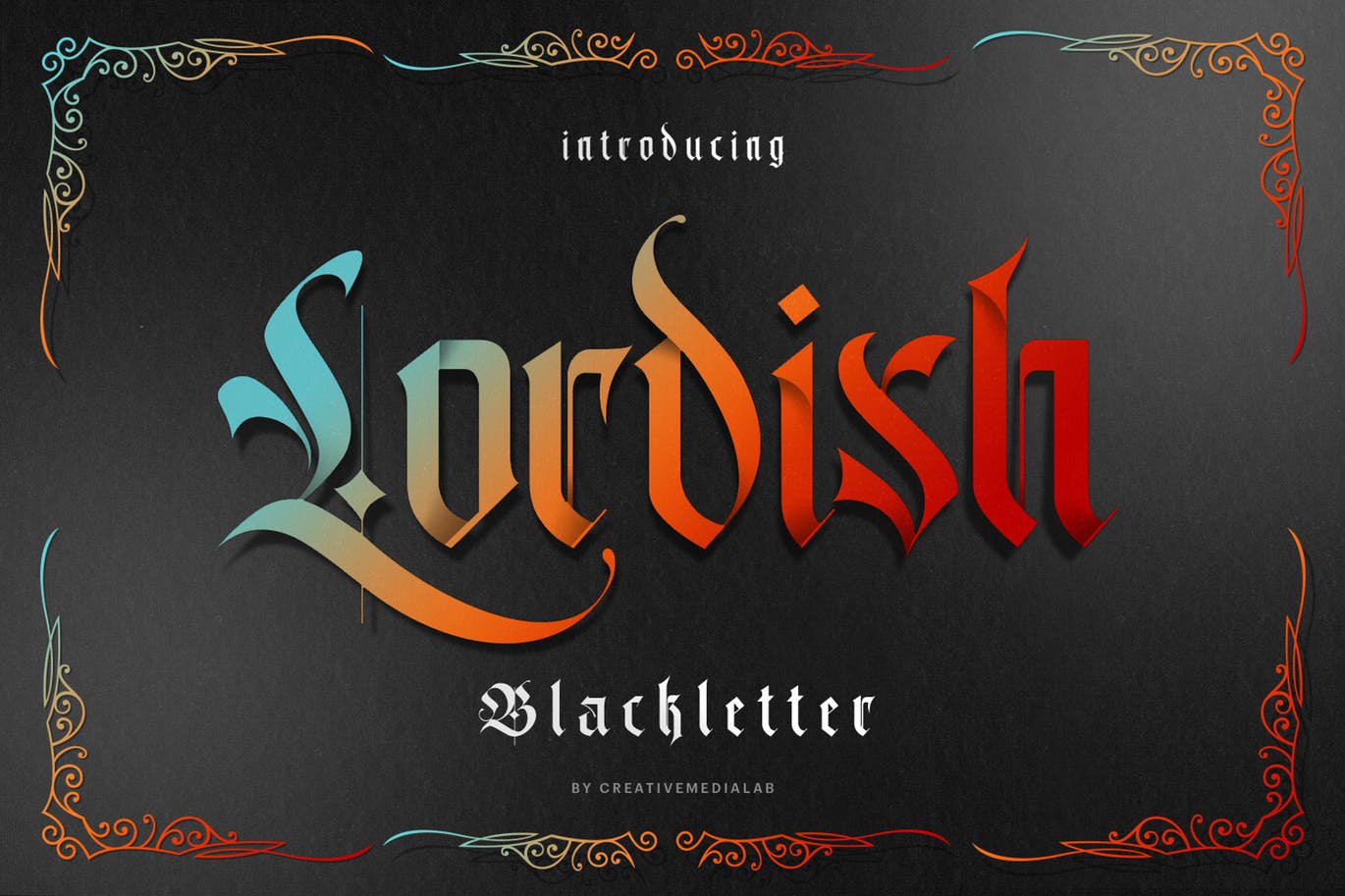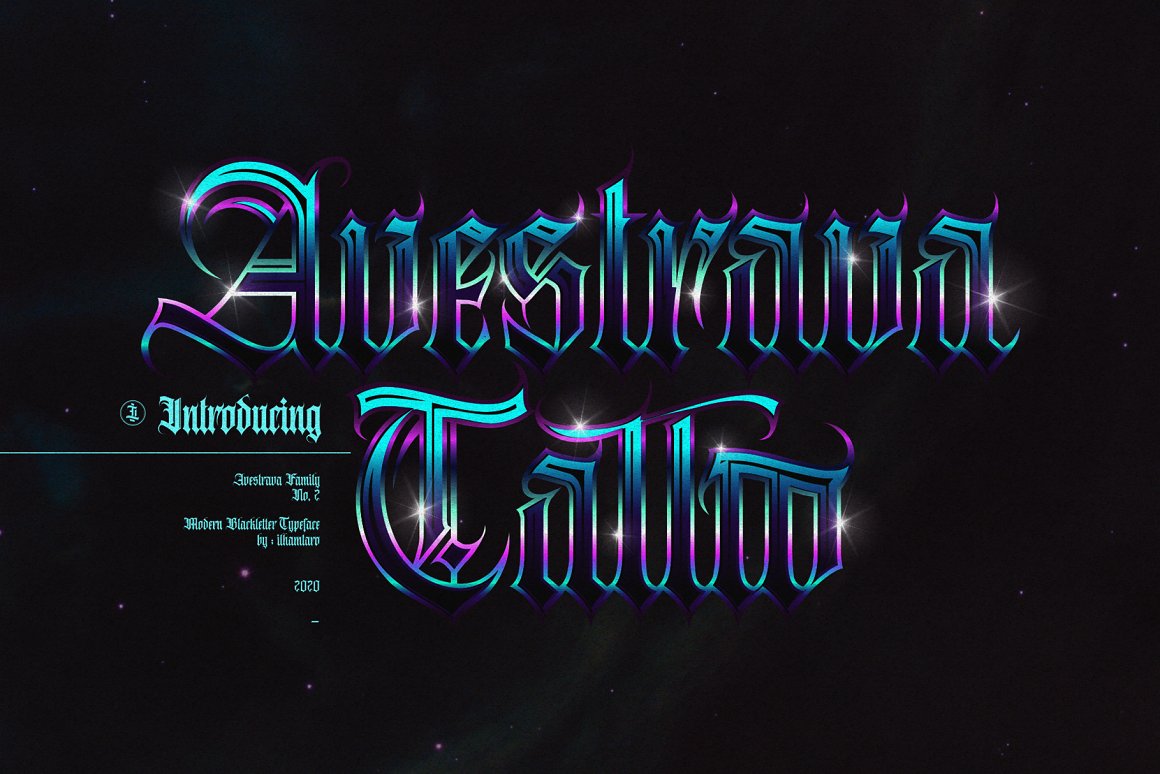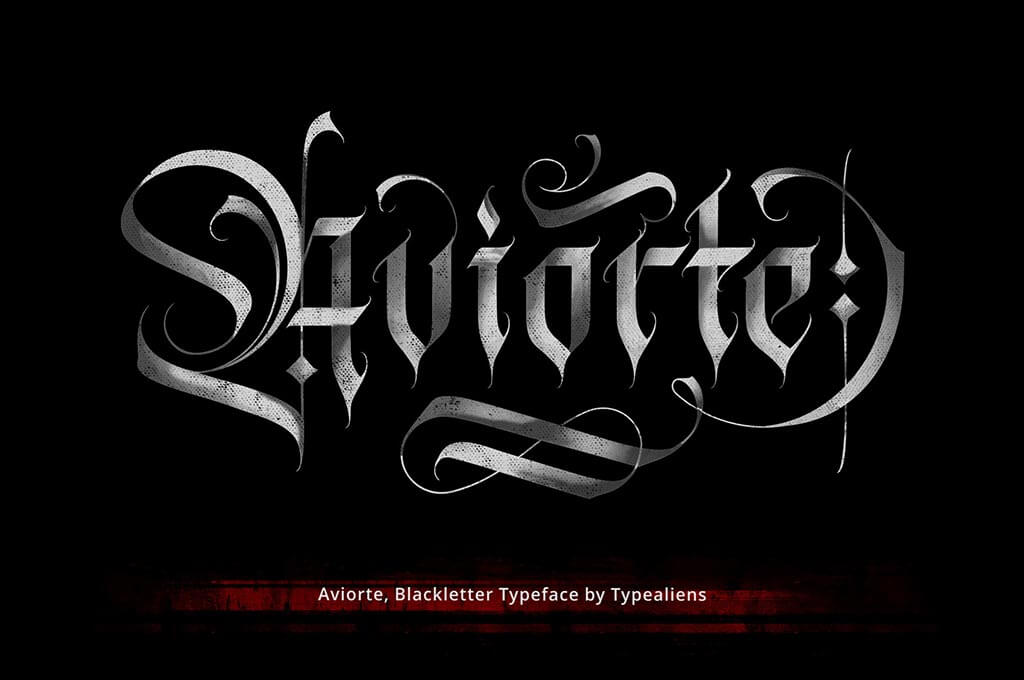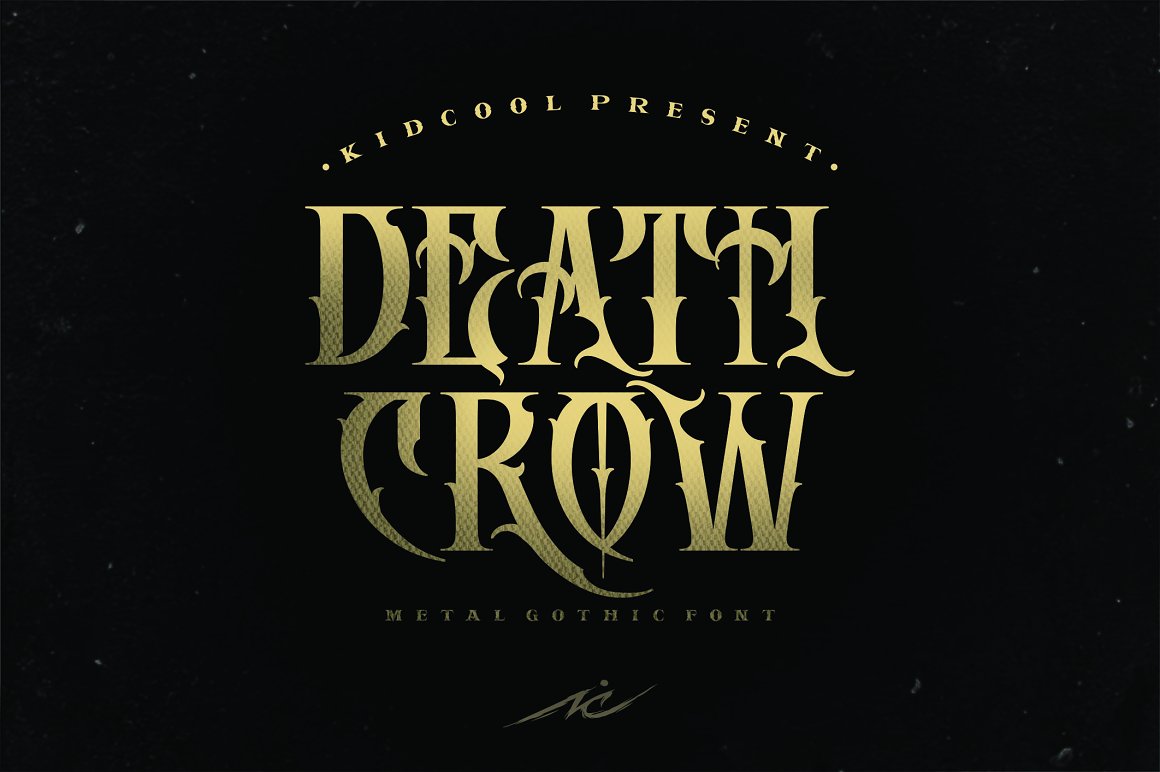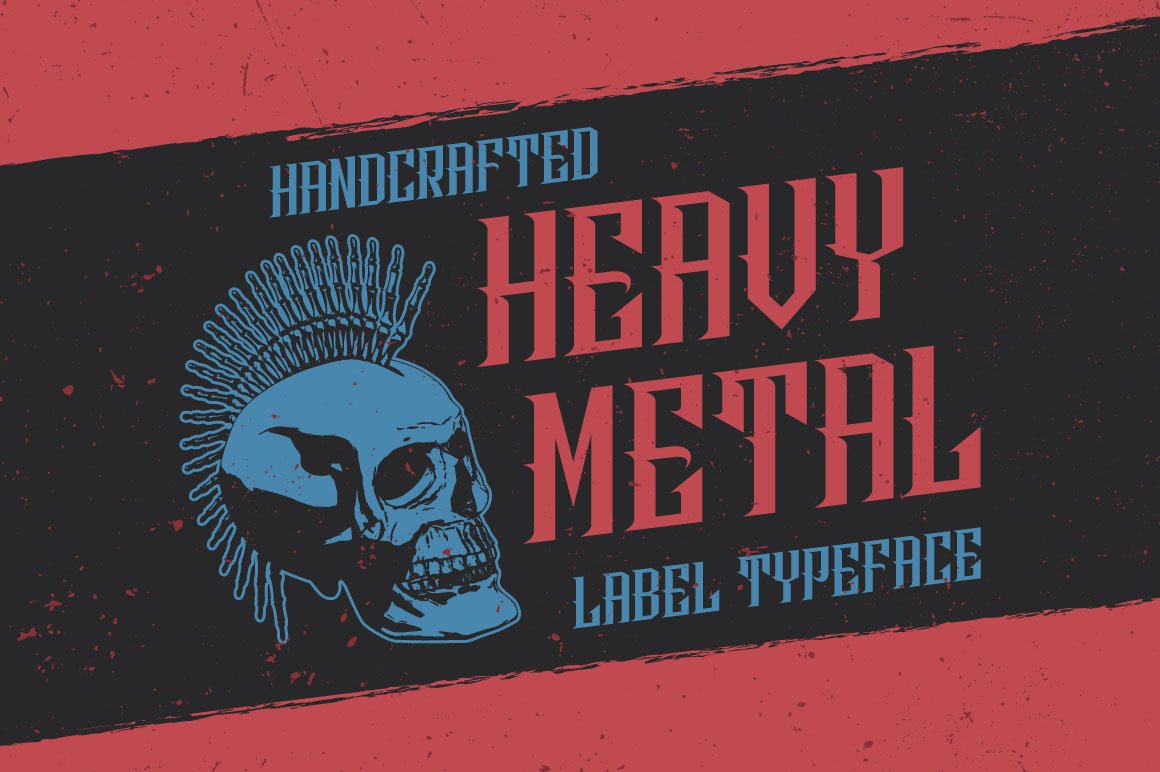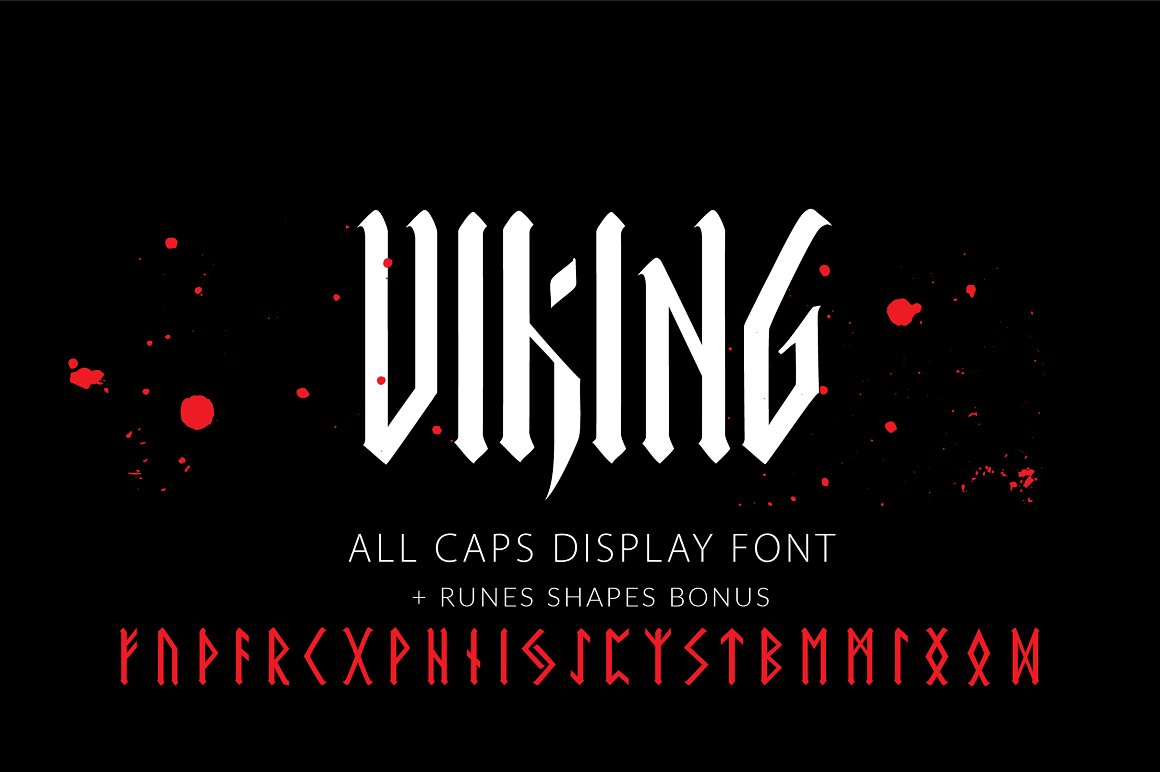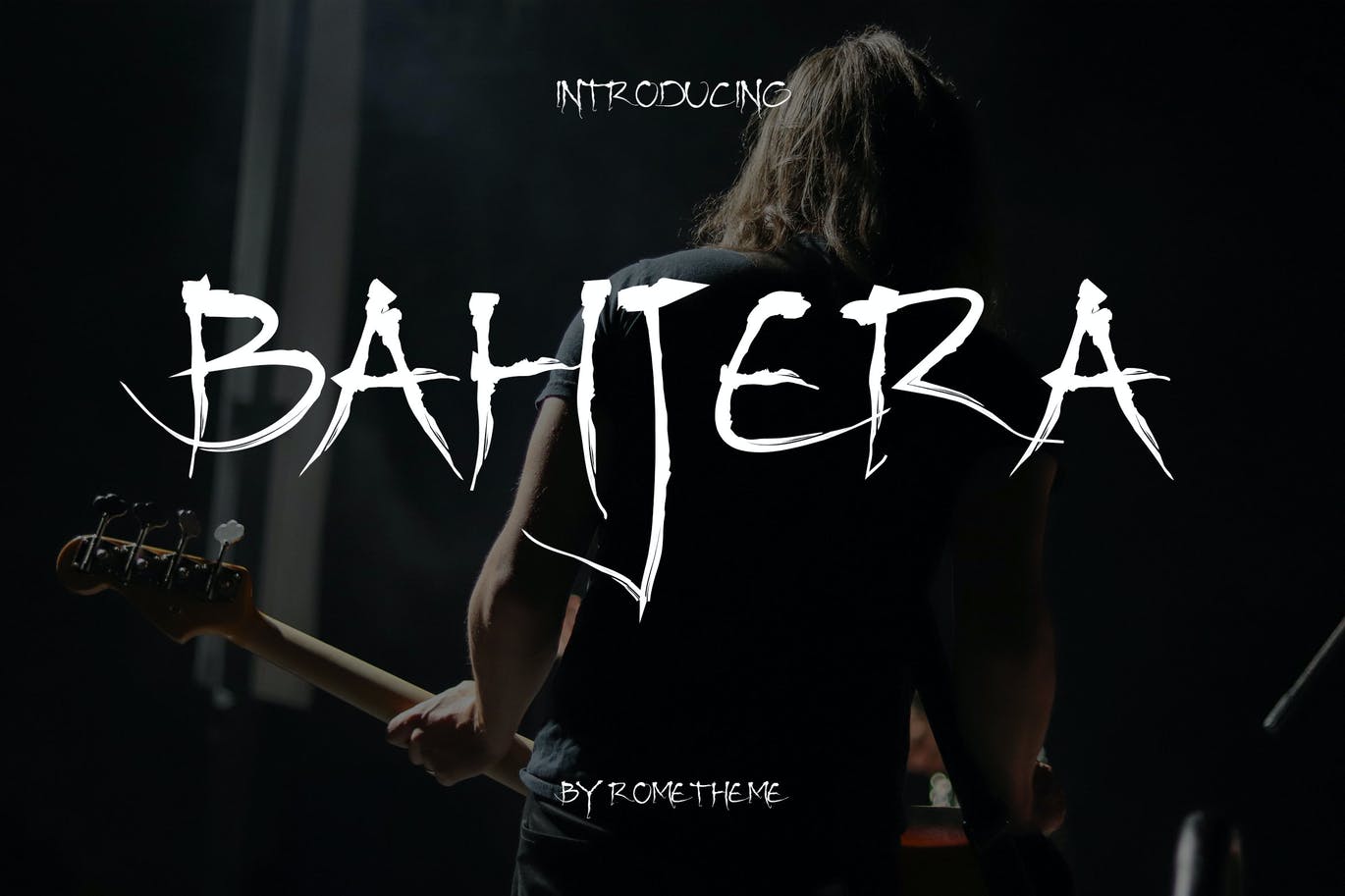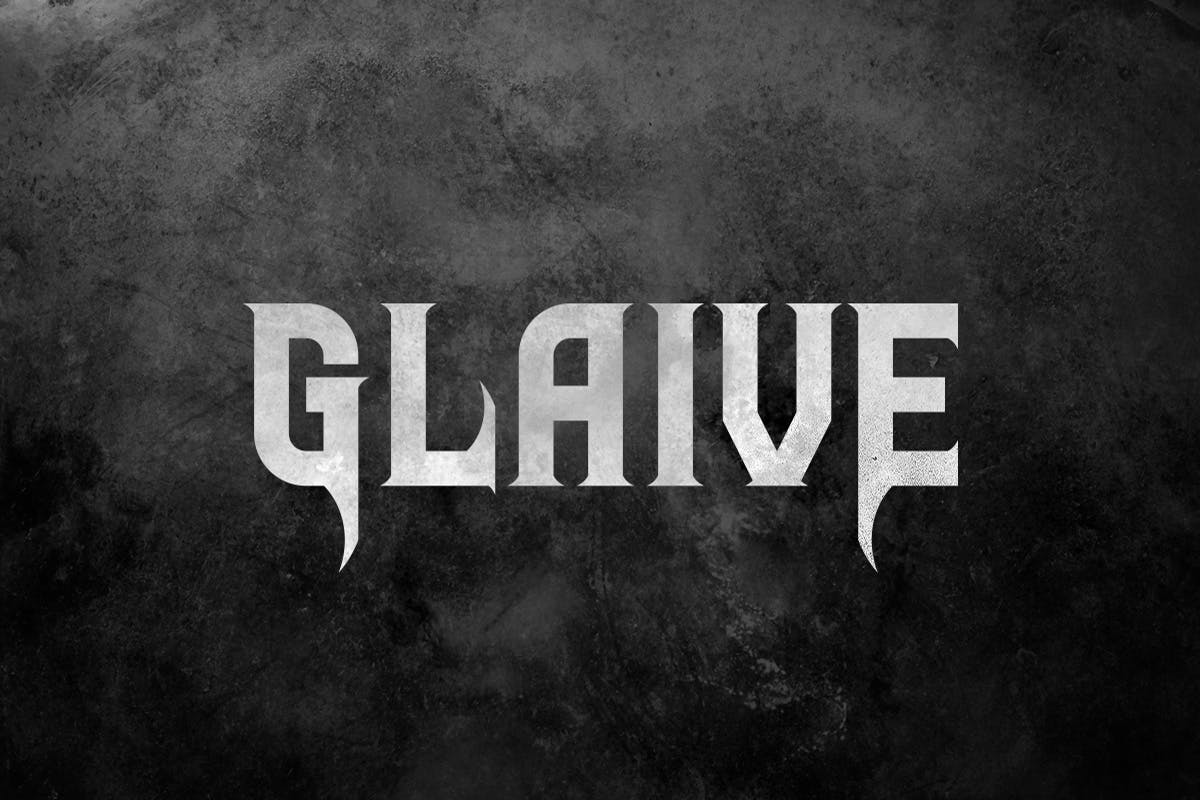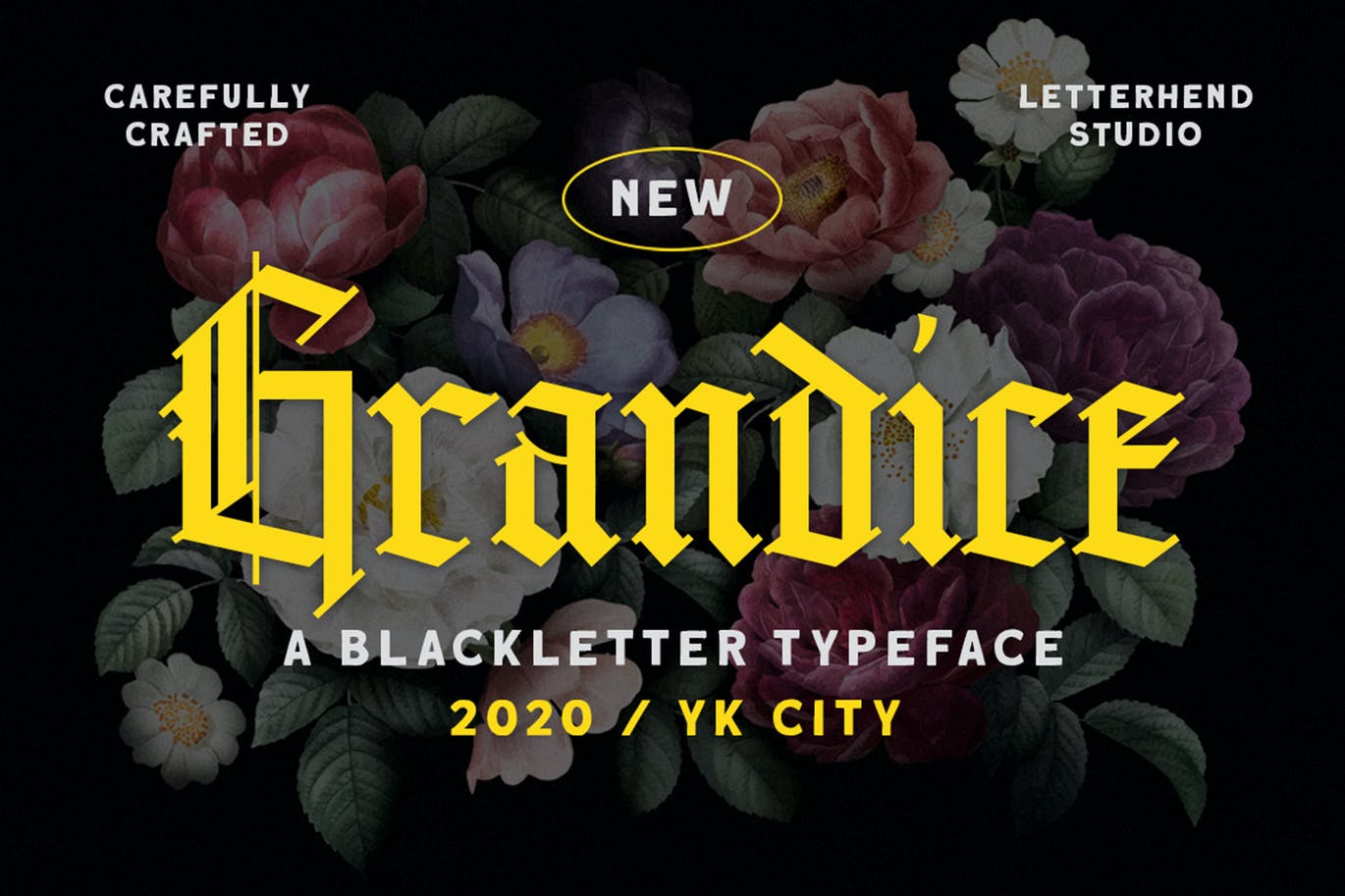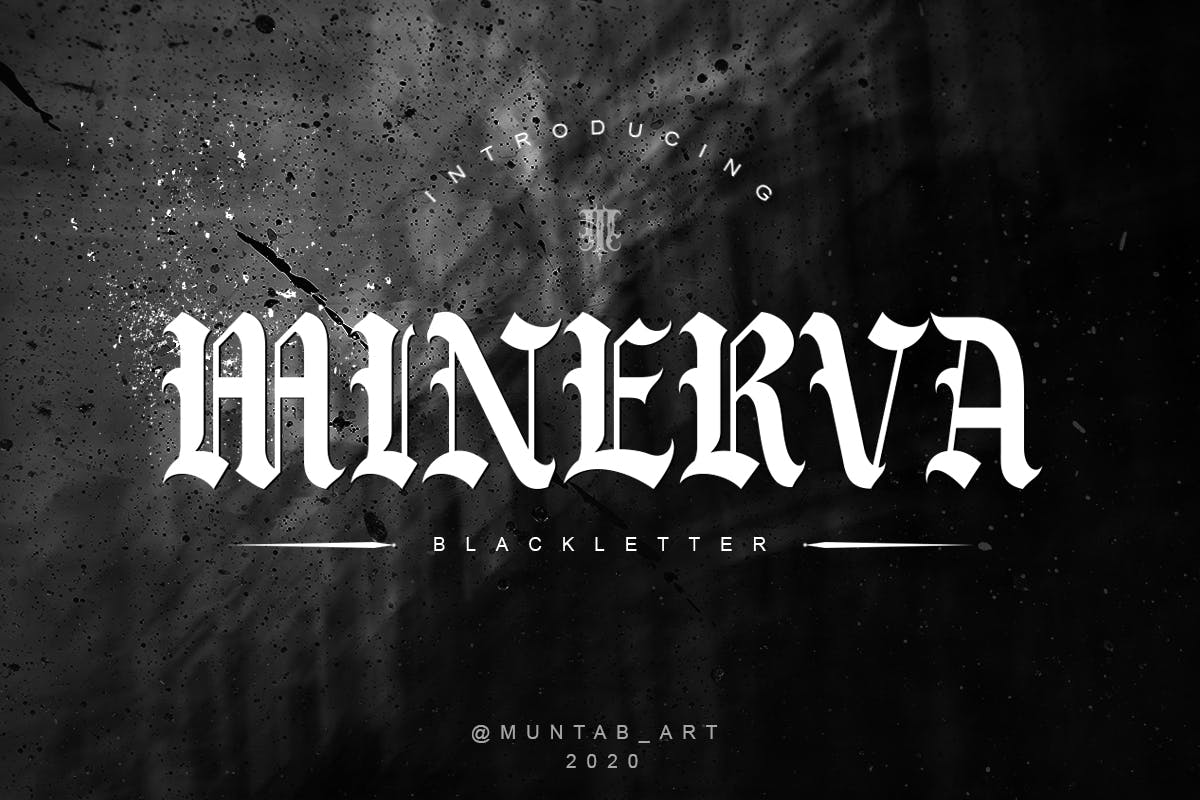
35+ Death Metal Fonts / Modern at Any Time
We guess that a lot of people like hard rock or metal music that not a black hole for designers indeed. Take a look at these fonts, they are gorgeous!
Rocking the world with these death metal fonts that is going progressively from one decade to another. You can call them a brutal and that’s a not a mistake. The style of these death metalic fonts is different from gothic style, but they look more agressively and black.
We think is enough fans of this style, so for crafting a design for it need a right fonts to cover the client’s needs. So in this collection we have gathered more as 35 free and premium gorgeous death metal fonts and they are modern of all time actually.
Death Crow
Amazing Gothic metal style font that allows you to enhance your artwork. It is suitable for completing illustration designs, logos, bands, etc.
Aviorte is an elegant, clean, and artistic blackletter metal font. Packed with the diverse uppercase letters, numerals, themed punctuation marks. It is suitable to be your title, headline, or logotype, badge, t-shirt design or branding project.
Absolutely crappy deadly metal font for terrible design project free for personal use only. It is perfect for bands, covers, headings, t-shirt design and etc.
Amazing death metal display font free for personal use only. It is perfect for bands, covers, headings, t-shirt design and etc.
Metal Lord is a heavy metal band font free for personal and commercial use. Inside you’ll find lots of punctuation, symbols, fractions and numeric ordinals following the classic metal font style.
Always modern font for heavy metal band design projects free for personal use only. Perfect for music bands, headings, posters, flyers and etc.
Avestrava Tattoo font has a modern Gothic metal style. Perfect for tattoo, logo, music bands, headings, posters, flyers and etc.
Lordish font, a unique blackletter for your design. Includes uppercase, lowercase and punctuations also international characters. Best for display font, tattoo or other black gothic metal style.
Black Magnet is great looking, badass, and each character was designed with great composition. This font is very suitable for you that like death metal music, design, your clothing, logo, and etc.
Creative blackletter metal font for your music band design project. It is perfect not only for a music bands, but also for many designs like headings, logos, flyers, posters and etc.
Smackdead inspired by black metal style with a horror theme very good for horror poster, metal music, flyer, album cover, merchandise and etc.
Sacre is a handmade typeface suit for any project like bands, cover, t-shirt, posters, flyers and etc.
Glaive is a typeface inspired by rock and metal music. It includes English uppercase letters, numbers and punctuation. Toggle caps lock to use the alternate letters.
It is a classic look label typeface named “HeavyMetal”. It’s made in strong and dynamic label style. Font is perfect for any labels design of whiskey, rum or brandy.
Info/ Download SourceSarkem / Technical Death Metal Font
Iintroducing the latest metal font. very suitable for logos, clothing, branding and others. very easy to use without the hassle of drawing.
Info/ Download SourceAligator / Death Metal Font
Aligator is made in a hard style and is perfect for those of you who need a death metal or underground theme font.
Info/ Download SourceFree Imminent Massacre Font
Imminent Massacre is agressive and crappy font free for personal and commercial use. It is perfect for horror posters, flyers, halloween design or other projects.
Download SourceFree Grind and Death Font
It is a brutal, strong and black font for your design works. Perfect for posters, flyers, display, t-shirt designs and etc.
Download SourceHeartless Death Metal Font
Heartless is great looking, badass, and each character was designed with great compotition. Of course, this font is very suitable for you that like deathmetal music, design, your clothing, logo, and etc.
Info / Download SourceZanaz / Deathmetal Font
Zanaz is made in a hard style. It is suitable for death metal music, death metal logo design, clothing, logos, music covers, posters or other designs with the theme Deathmetal.
Info / Download SourceGrandice / Blackletter Typeface
Grandice is well crafted and strong typeface well going on logo or label designing. Also perfect for clothing, fashion, headline, or any type of advertising purpose.
Info / Download SourceRose Throns / Death Metal Band Font
This font is inspired by underground and metal music band logostyle. It is suitable for death metal music, underground, hardcore music, blackletter, death metal logo design, clothing, logos, music covers and etc.
Info / Download SourceBlack Orchestra Font
It is a blackletter font inspired by heavy metal. This font consists of uppercase and lowercase and is supported by ‘latin extended’ which allows wider use of this font. This font will turn any horror project into a standout!
Info / Download SourceNightcrow / Deathmetal Font
A display death metal font for your horror and havy design projects. It is perfect for clothing, logos, music covers, posters and etc.
Info / Download SourceAnemouth Font
This font have a classic body but with a soul that can adjust to the modern world. It will be suitable for band names / logos, album covers, metal / hardcore / underground / punk band posters and etc.
Info / Download SourceMinerva / Blackletter Font
Minerva fonts includes uppercase letters, numerals, a large range of punctuation. Created for poster, web design, branding, illustrations, badges, shirt design and etc.
Info / Download SourceRootking Font
Rootking is a strong and black font for any kind of gothic projects. Perfect for t-shirt design, labels, posters, flyers, logos and etc.
Info / Download SourceBahjera YR
It is a brush and handdrawn font, this font looks urban, cool, readable, stylish, catchy and easy to use. Best choice for logo, poster design, t-shirt, headline, flyer, cd cover album, quotes, business card, branding and etc.
Info / Download SourceXXII Daemon Runes Font
Vectorgrunge font based on the look of runes. Perfect for design, t-shirt, headline, flyer, cd cover album, quotes, business card, branding and etc.
Dramaga Typeface is a font inspired by Posthardcore Band. It’s a good choose to create ghotic design, branding, logos, product packaging, cover album, invitation, qoutes, t-shirt, banner, tatto, label poster and etc.
Viking Caps is a strange mix of runic and gothic letterforms. Use it in logos for rock band projects, t-shirt designs, tattoos and etc.